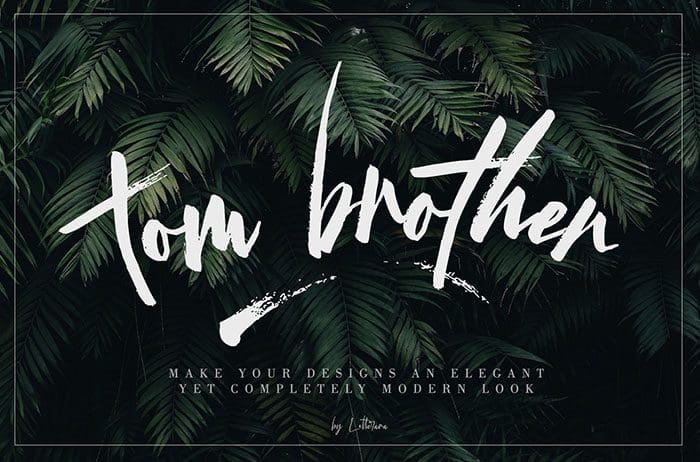
Tom Brother Brush Font
Tom Brother brush font. It has a natural handmade look with a less regular baseline. Make your designs an elegant yet completely modern look. Tom Brother is great in any branding, posters designs, and your upcoming winter stuff. Created this font by Thomas Aradea. You can also search more free Brush Fonts. I hope you enjoy this font.